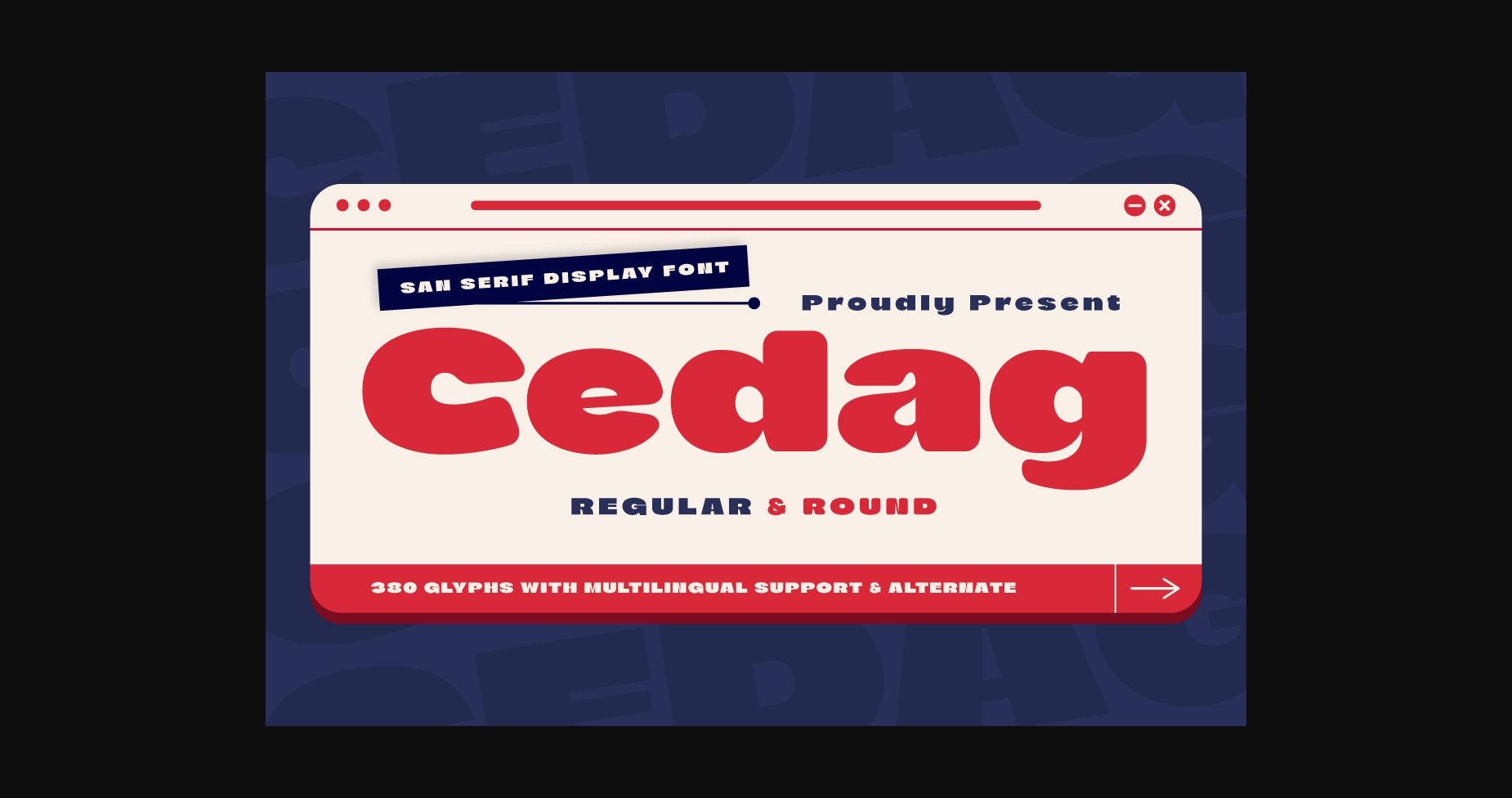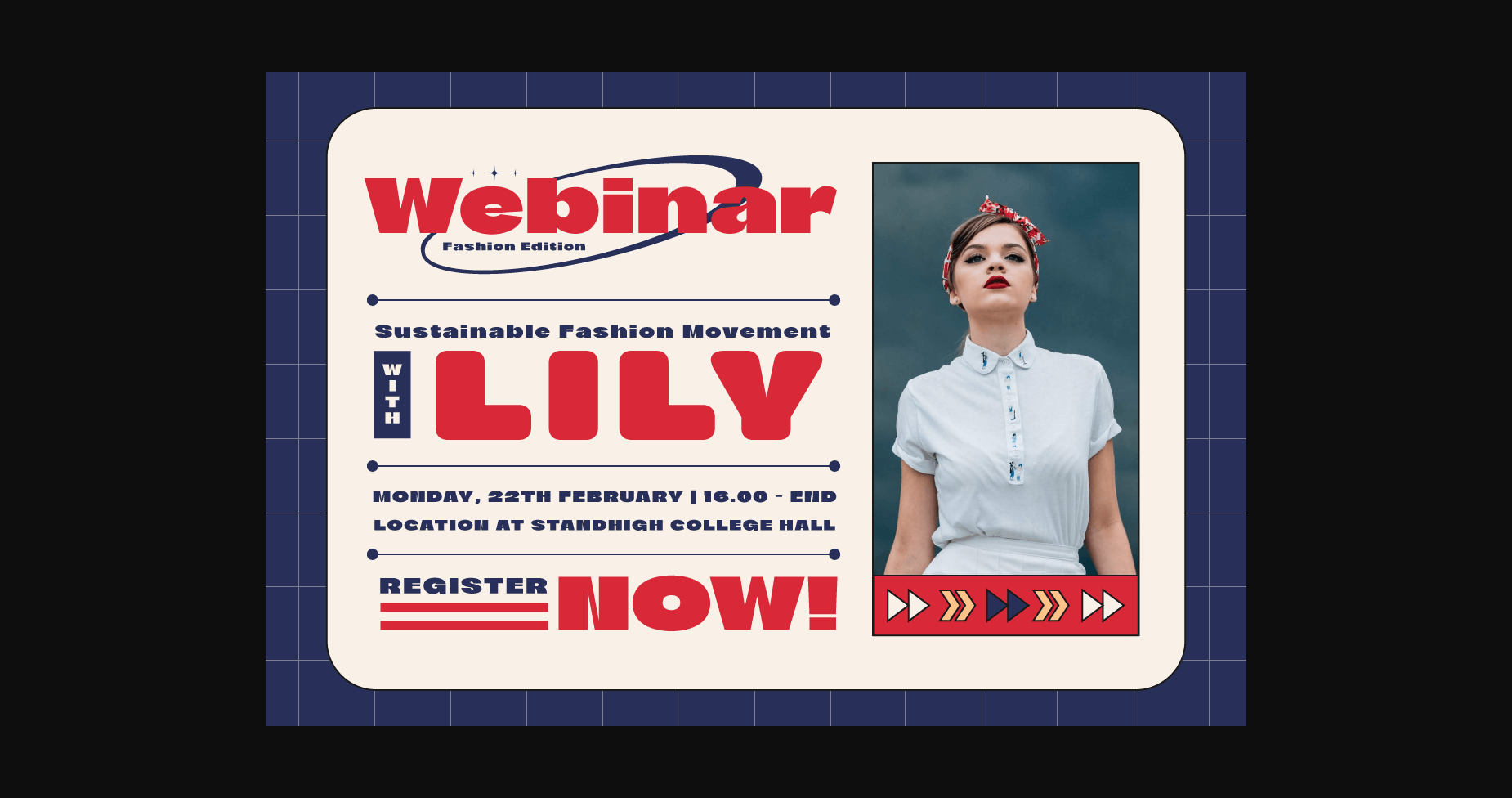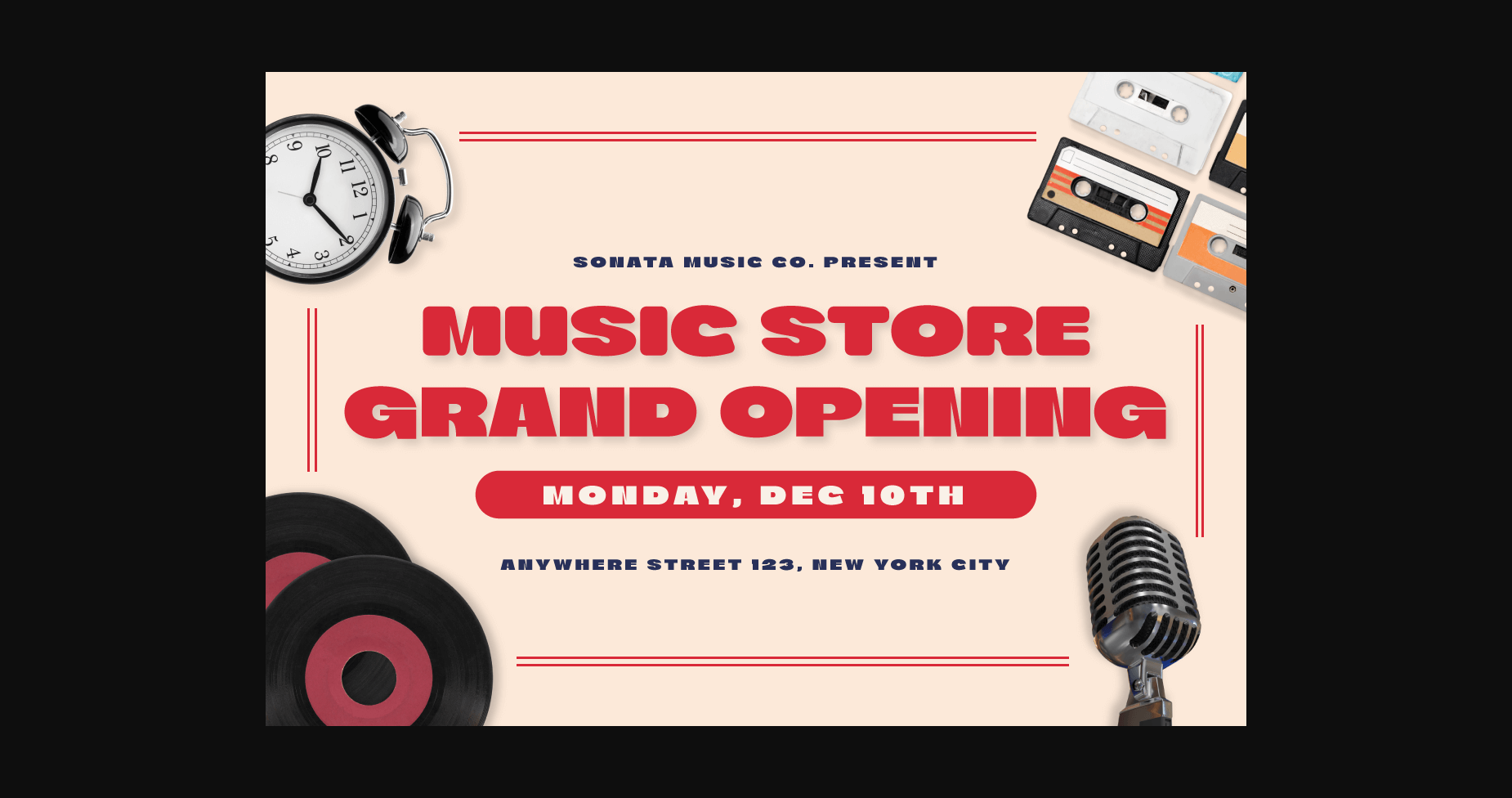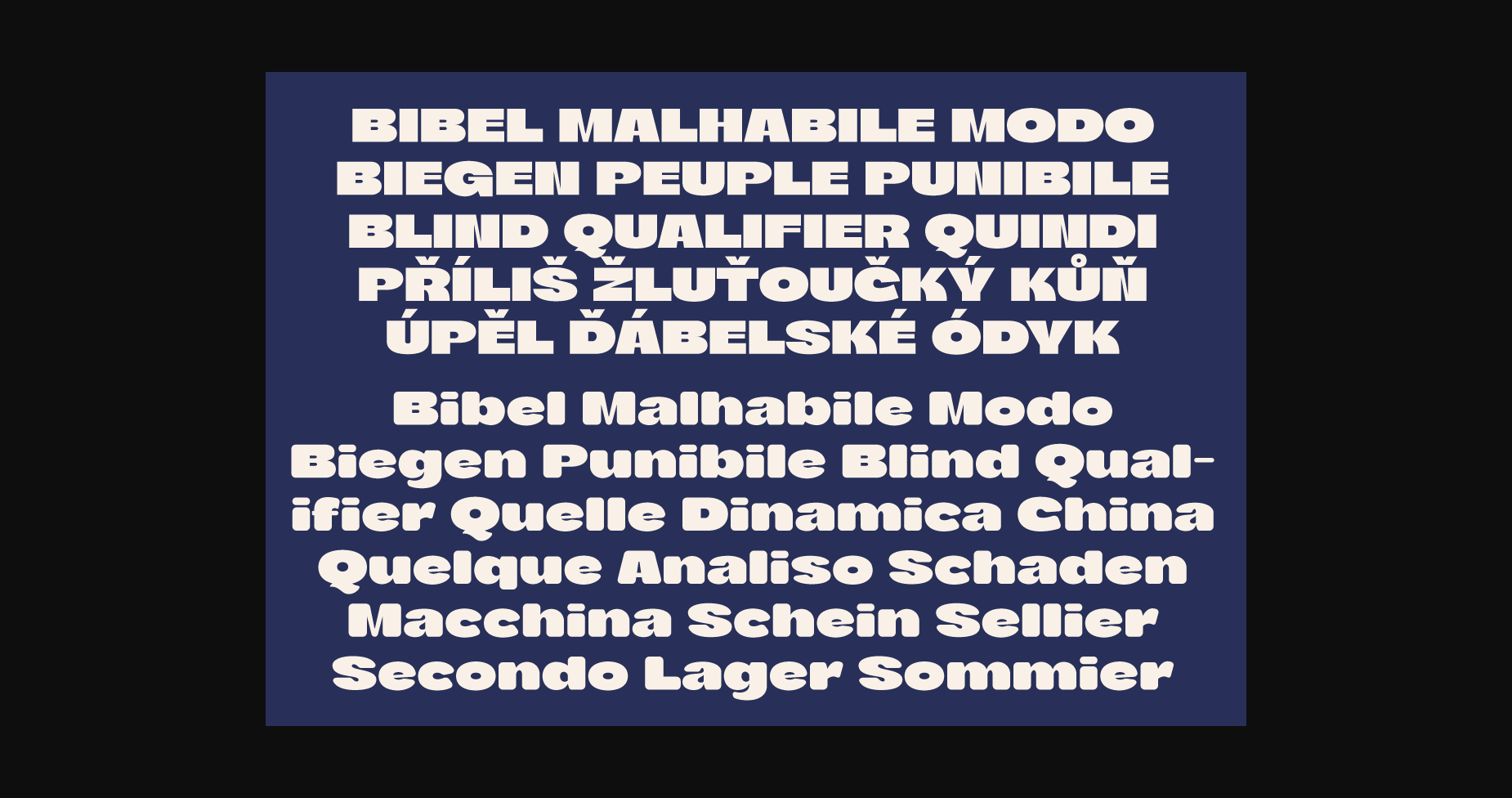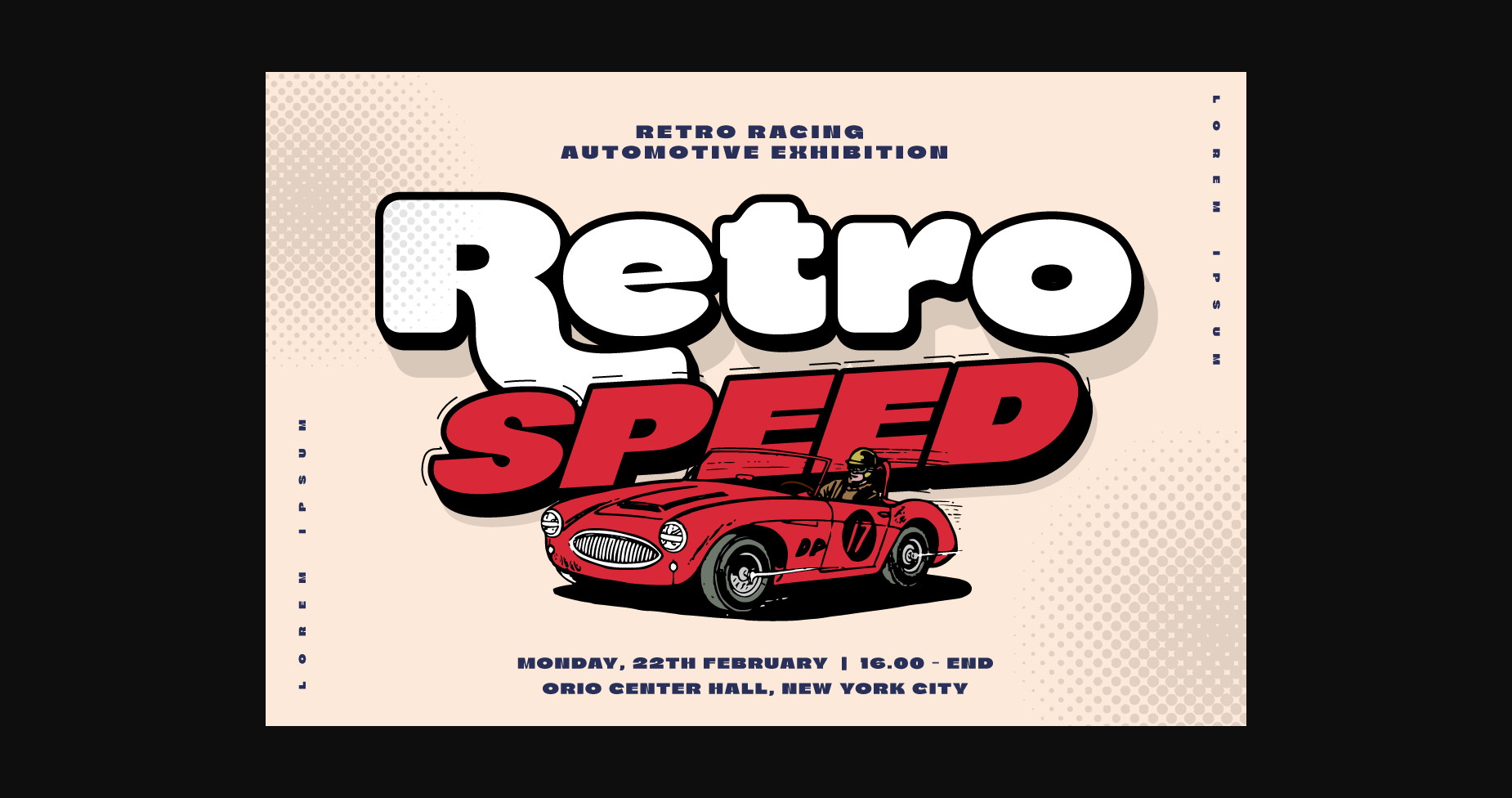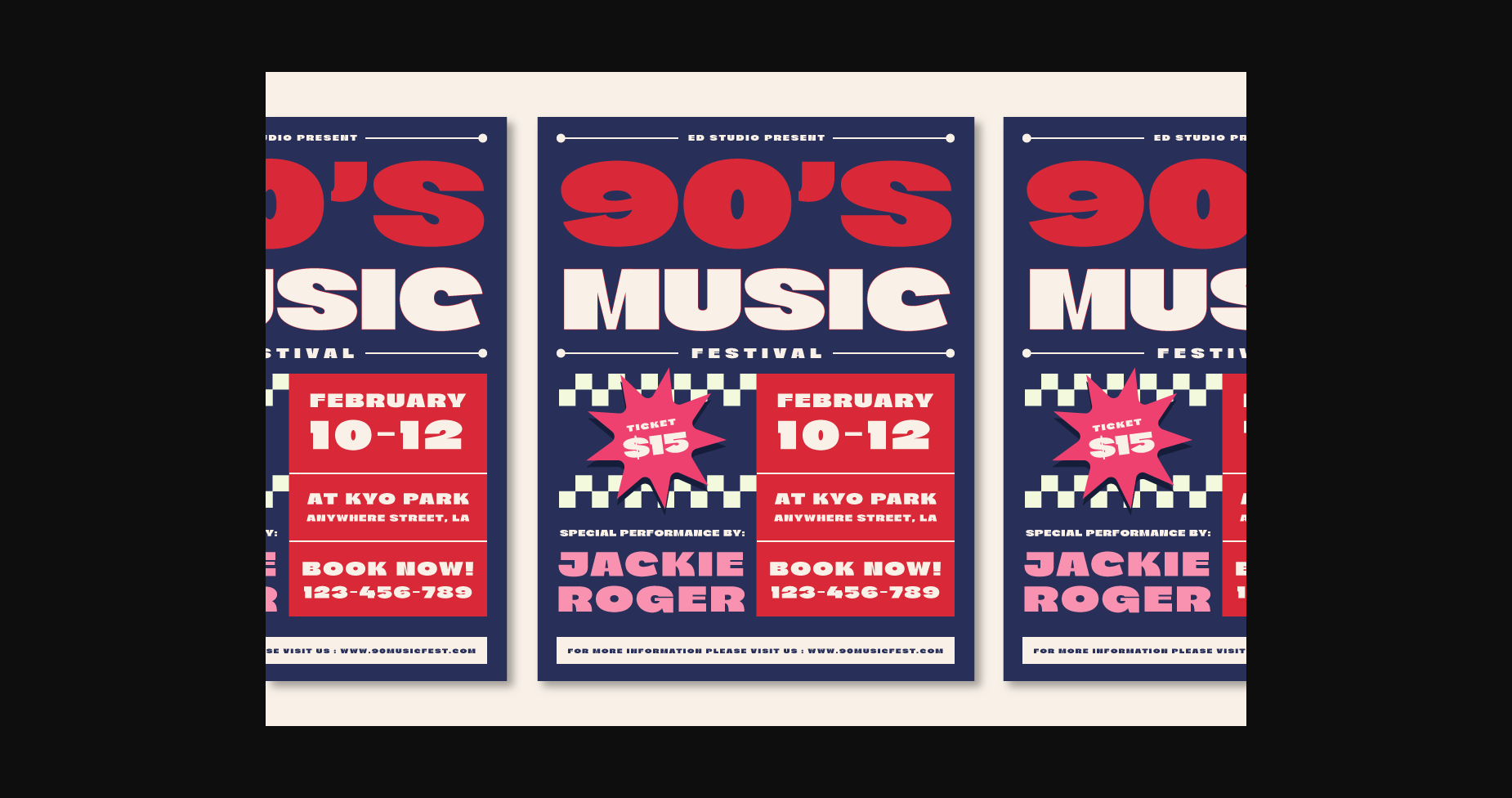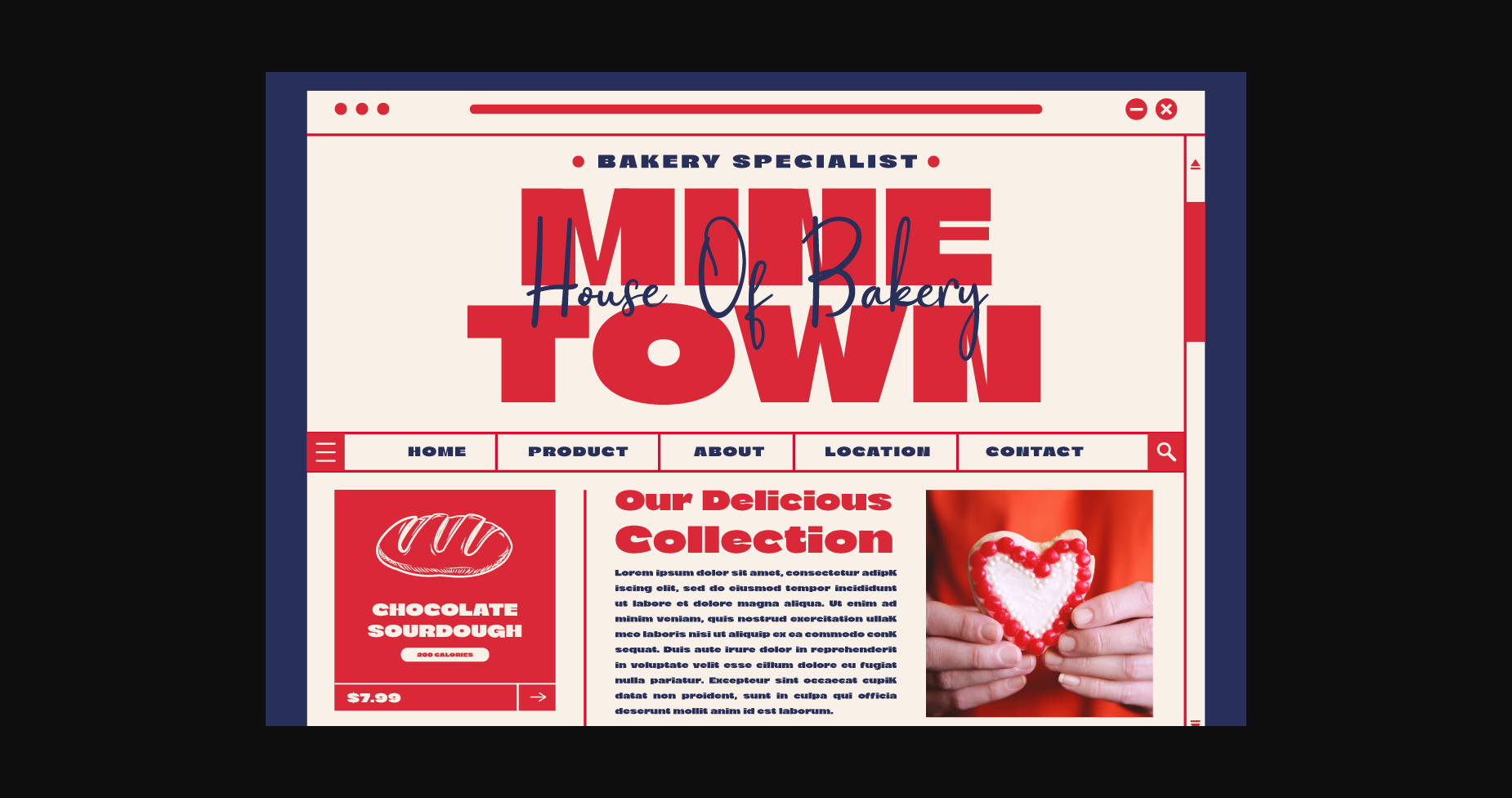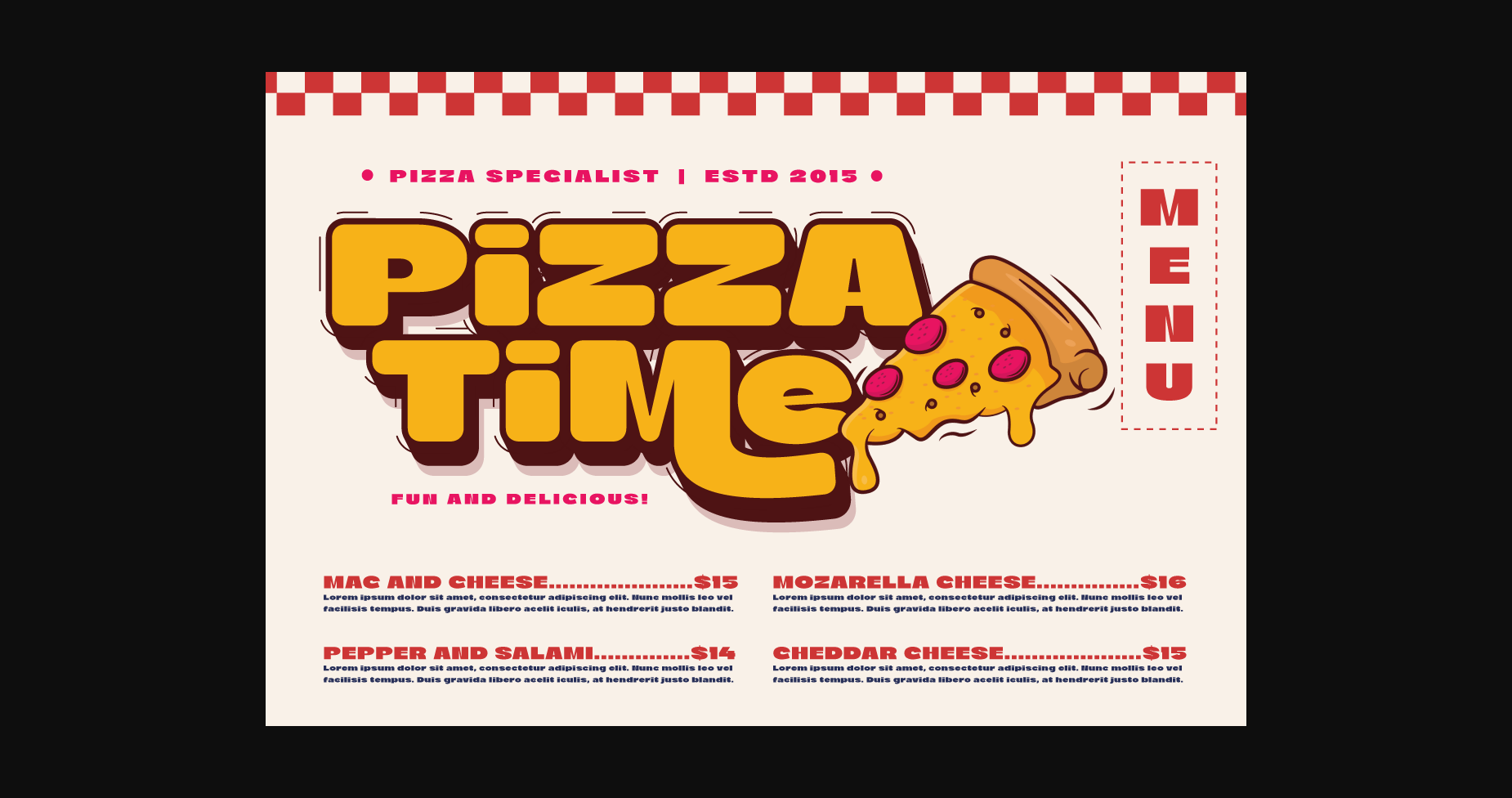
Cedag Font
About Cedag Font
Introducing Cedag, a stunning sans-serif font that exudes elegance and boldness. The font boasts two unique families, regular and round, both offering a modern twist to a classic look. With its sleek and stylish design, Cedag is perfect for any project that requires a confident and sophisticated aesthetic.